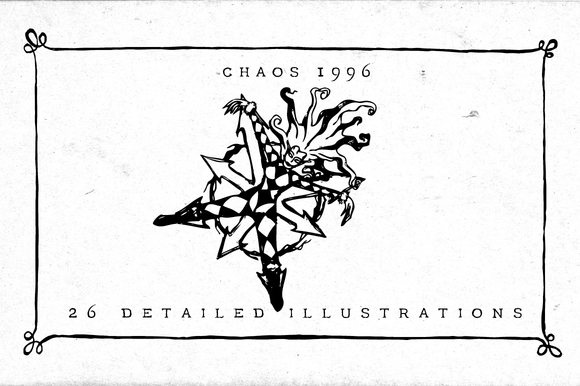
Unleash your creativity with Chaos 1996 Font, a captivating dingbat font family that will ignite your imagination. Dive into a world of endless possibilities as you explore the intricate details and charming imperfections of this unique font. Crafted by the talented Dawnland, Chaos 1996 Font is more than just a collection of glyphs—it's an art form that will transform your designs into captivating masterpieces.
Let Chaos 1996 Font guide you on an artistic odyssey, where your imagination takes center stage. Embrace the chaos and let your creativity run wild as you explore the font's vast array of symbols, ornaments, and flourishes. Each character is meticulously designed to evoke a sense of wonder and delight, inviting you to create visually striking designs that captivate and inspire.
Experience the allure of Chaos 1996 Font and step into a realm where creativity knows no bounds. Whether you're designing logos, posters, invitations, or social media graphics, this font will add a touch of magic and intrigue to your work. Its versatility extends beyond traditional design realms, making it perfect for crafting unique tattoos, custom merchandise, and eye-catching website elements.
Don't settle for ordinary fonts that blend into the background. Embrace the chaos and let your designs stand out with Chaos 1996 Font. Its intricate details and captivating aesthetics will leave a lasting impression on your audience, ensuring that your creations are remembered long after they've been seen.